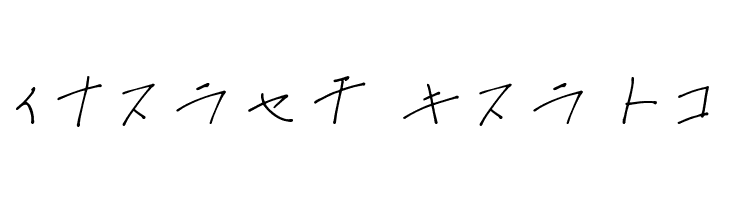
A playful, handwritten font with dynamic strokes and an informal style.
A playful, hand-drawn font with a whimsical and casual style.
A casual, handwritten font with a natural, fluid style.
A playful, handwritten font with smooth, flowing strokes and a casual vibe.
A playful, informal handwritten font with thin, irregular strokes.
A slim, handwritten font with an organic and personal touch.
A playful, handwritten font with a casual and whimsical style.
A playful, casual handwritten font with an organic flow and friendly appearance.